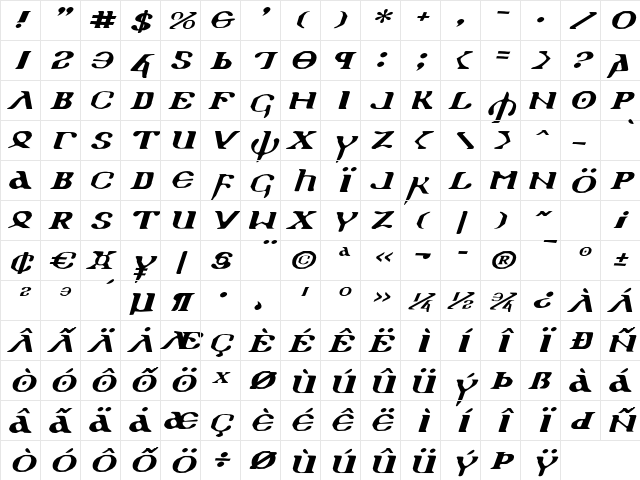
Complete Holy Empire Expanded Italic glyph index. Displaying only characters natively supported by Holy Empire Expanded Italic font.
Holy Empire is a composed and adaptable typeface that performs quietly and consistently across a wide range of design contexts. The slanted form adds forward momentum and visual energy.